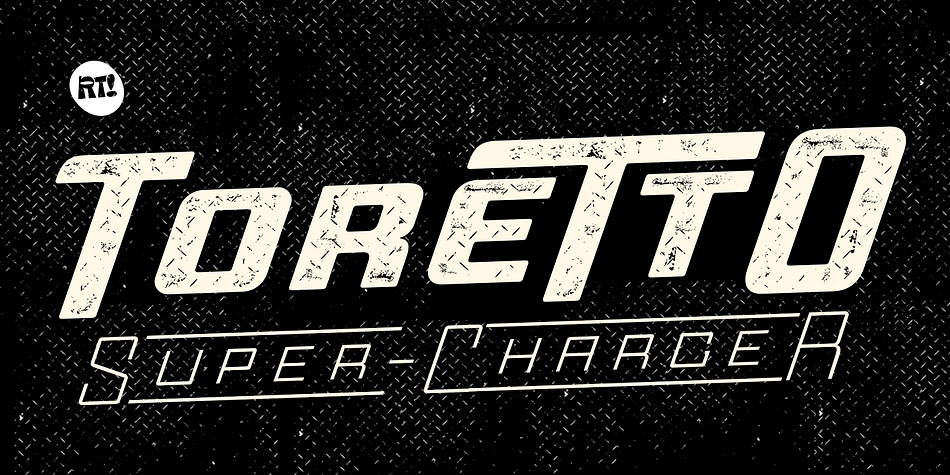
ToreTtO
Designed by Rodrigo Salas, ToreTtO is a display sans font family. This typeface has twelve styles and was published by Rodrigo Typo.
Typography inspired 100% in action, Adventure, Cars, contains different weights and alternatives 12 fonts in total
Foundry Rodrigo Typo
Designer Rodrigo Araya Salas